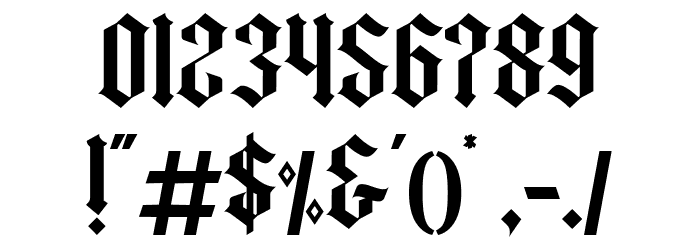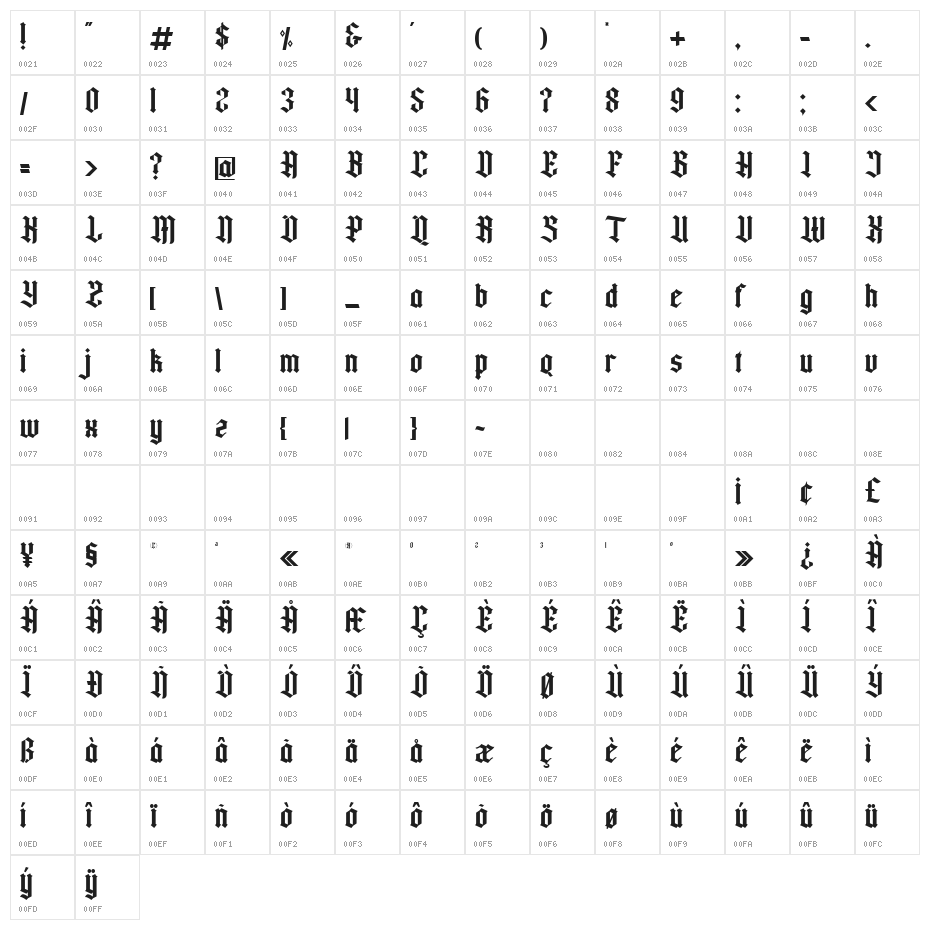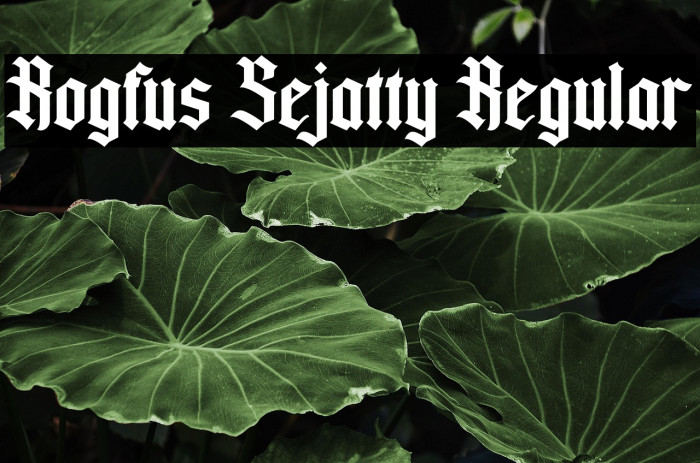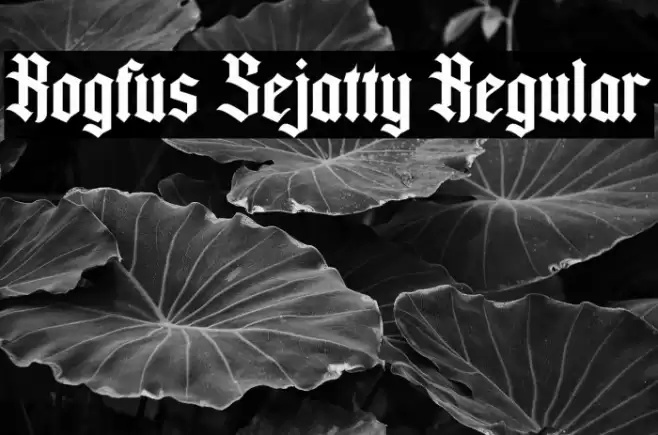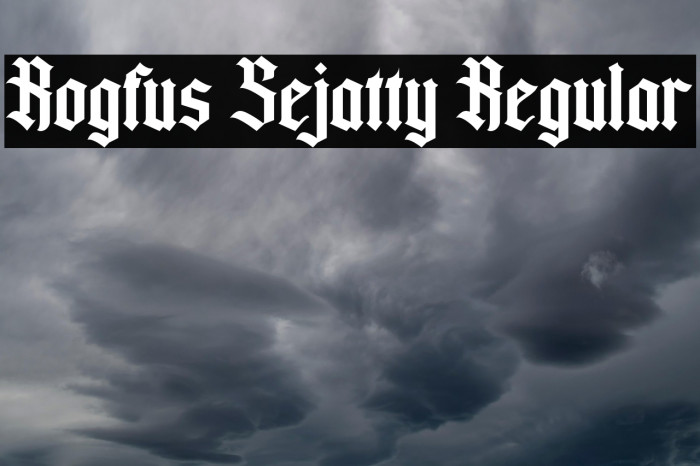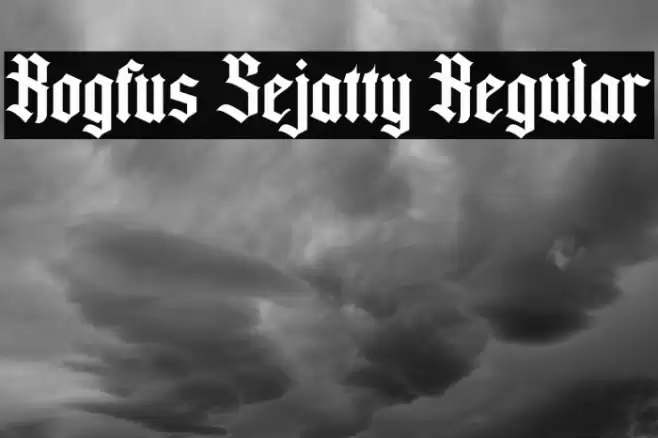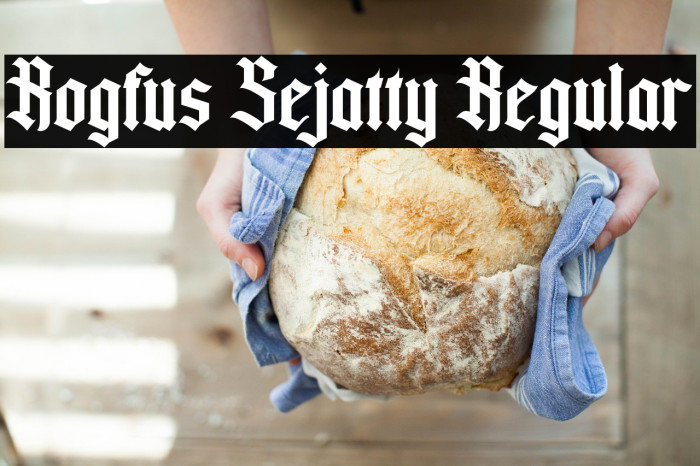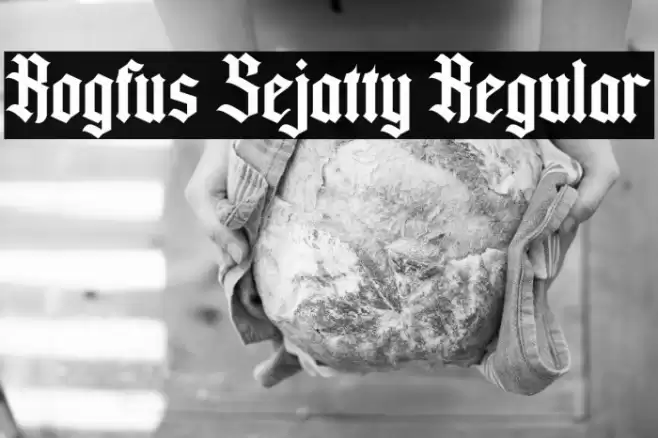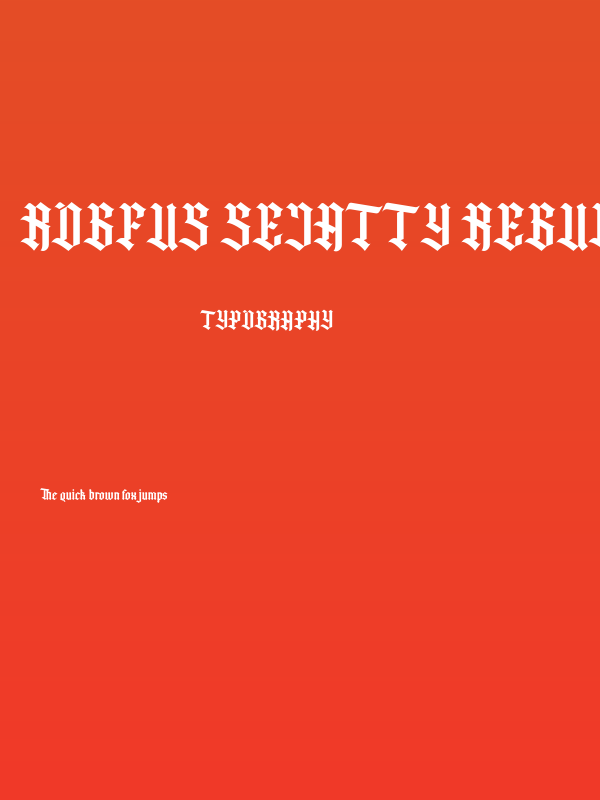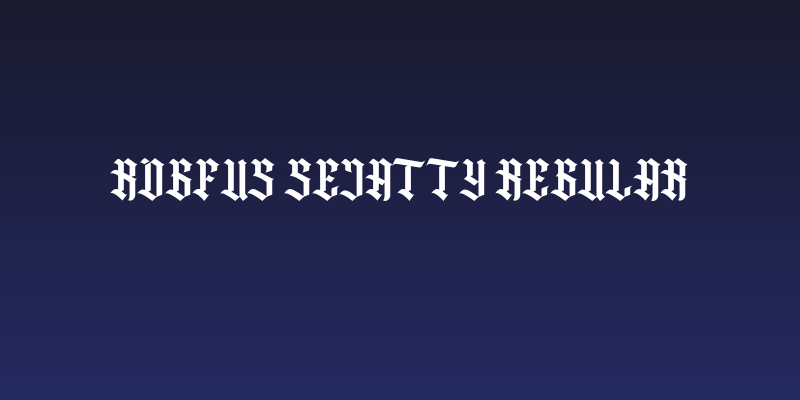
Rogfus Sejatty Regular Font
Rogfus Sejatty Regular Description
This font features a bold and intricate design, reminiscent of traditional blackletter styles. The characters are sharply angular with pronounced serifs, giving them a strong and authoritative presence. The uppercase letters are particularly striking, with elaborate flourishes and a gothic aesthetic. The lowercase letters maintain the same stylistic elements, ensuring consistency throughout. Numbers and special characters are equally detailed, making this font suitable for projects that require a dramatic and historical touch.
| Overall Style | Gothic, Historical |
| Use Case | Headlines, Logos, Decorative purposes |
| Proposed Projects | Ideal for use in branding, posters, book covers, and any design that requires a historical or gothic theme. |